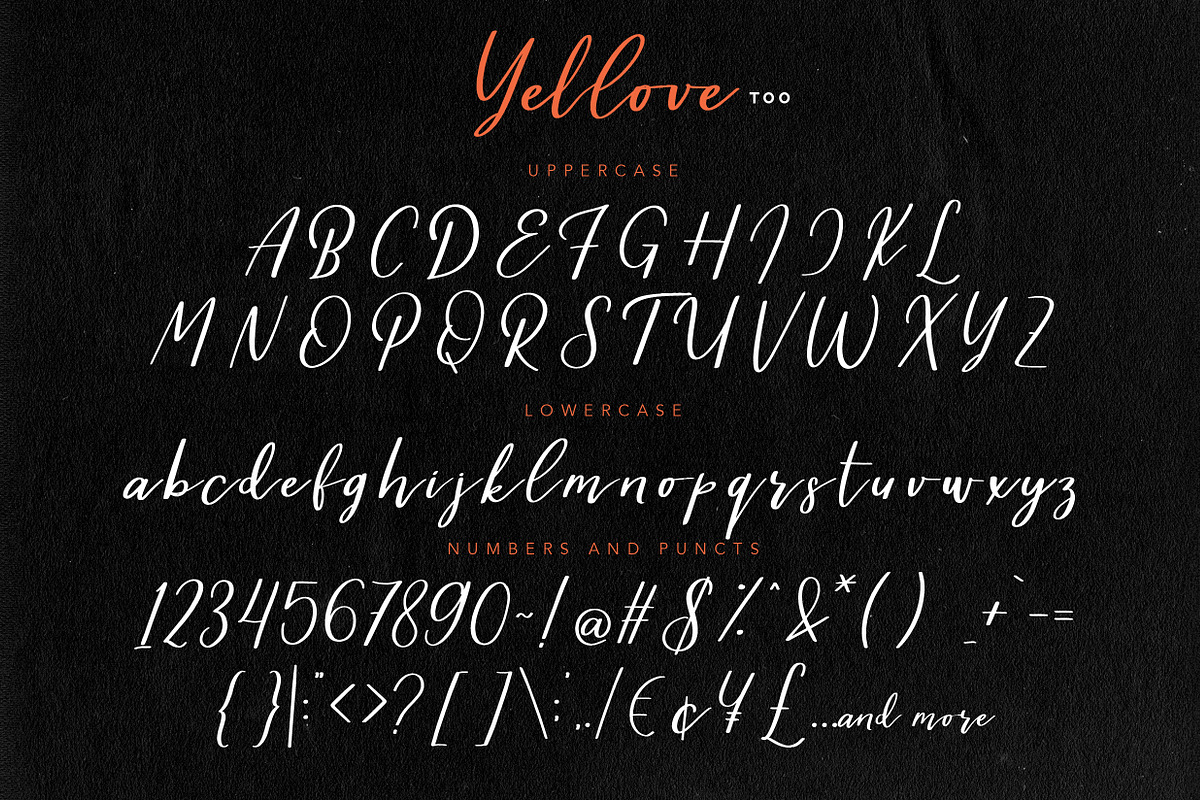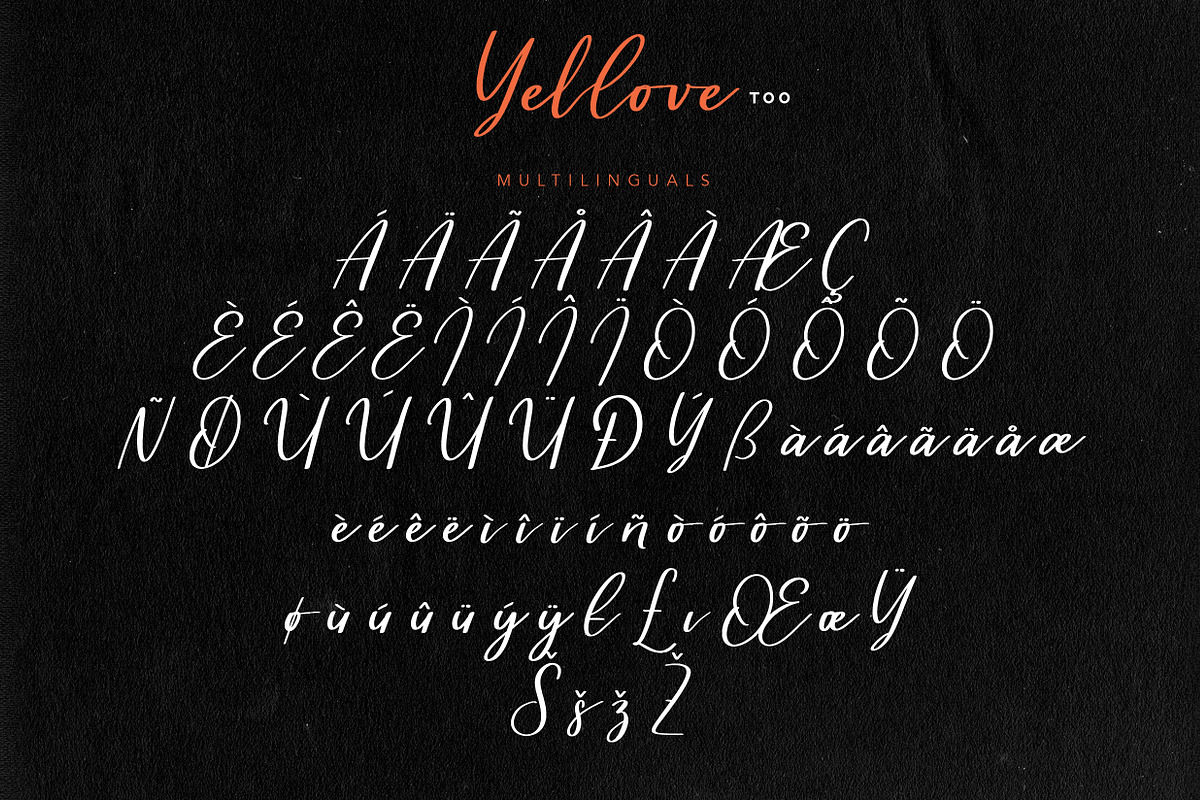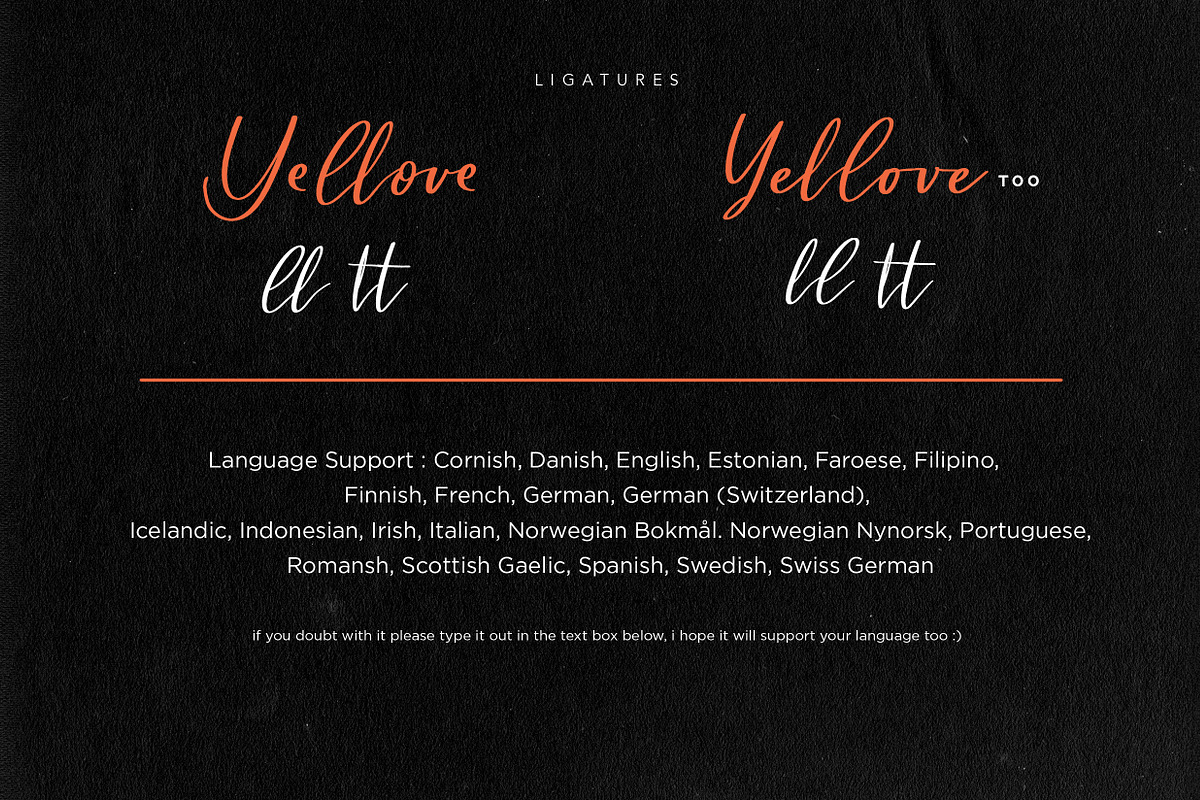
Yellove Duo - Fun Casual Handwriting
A beautiful hand writing modern calligraphy fonts with a huge versatileness for any casual branding needs. Ladies and Gentleman, please welcome, Yellove Duo. A duo fonts that you'll love to love.
It contains 2 styles, Yellove and Yellove Too. The Yellove Too is an alternative shape from the Yellove. So your design will looks like traditionally handwritten because the handwriting letters are never be the same :)
Language Support : Danish, Dutch, English, Filipino, Finnish, French, Galician, German, Icelandic, Indonesian, Irish, Italian, Norwegian Bokmål, Norwegian Nynorsk,Portuguese, Romansh, Spanish, Swahili, Swedish, Swiss German, if you doubt with it please type it out in the text box below, i hope it will support your language too